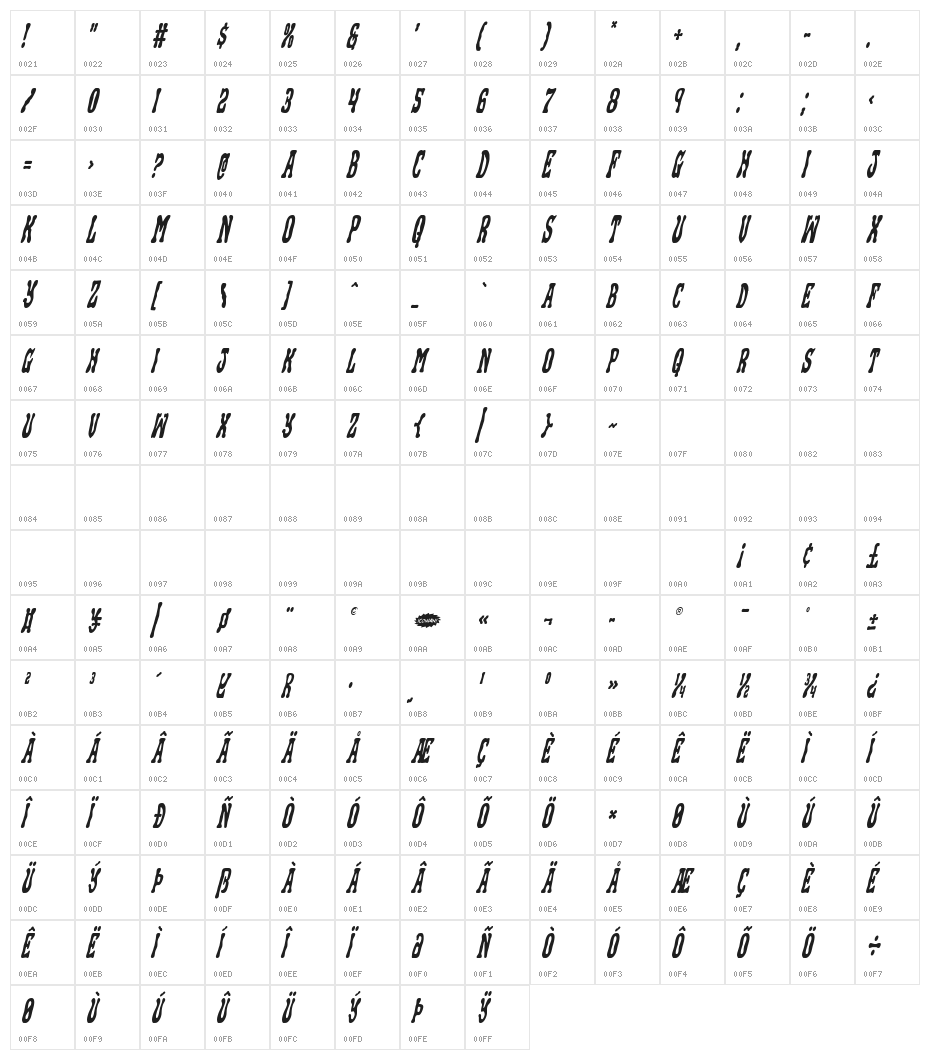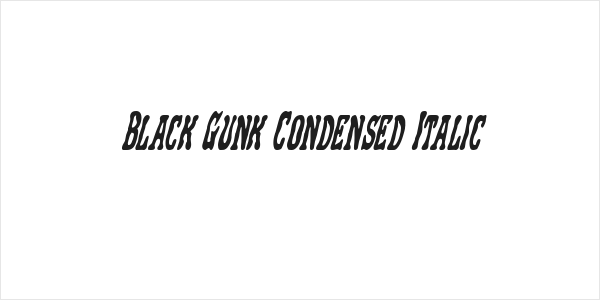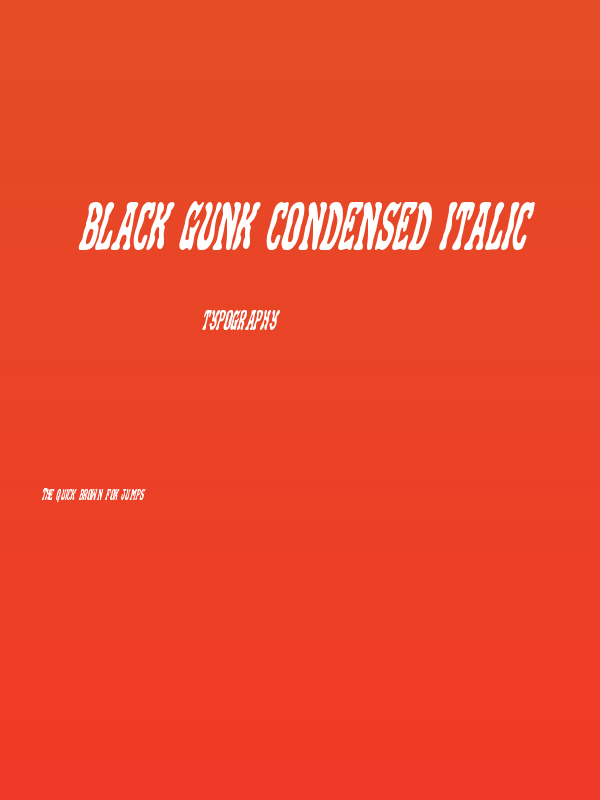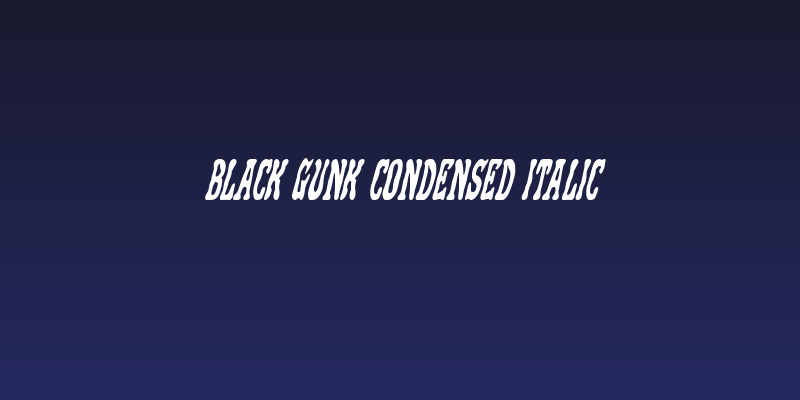
Black Gunk Condensed Italic Font
Black Gunk Condensed Italic Description
This font features a bold and condensed style with a distinct italic slant, giving it a dynamic and energetic appearance. The characters are heavily stylized with thick strokes and rounded edges, creating a sense of movement and fluidity. The uppercase and lowercase letters maintain a consistent design, while the numbers and special characters complement the overall aesthetic. The font's unique style makes it stand out, making it suitable for eye-catching designs.
| Proposed Projects | Ideal for posters, logos, and branding projects that require a bold and energetic look. |